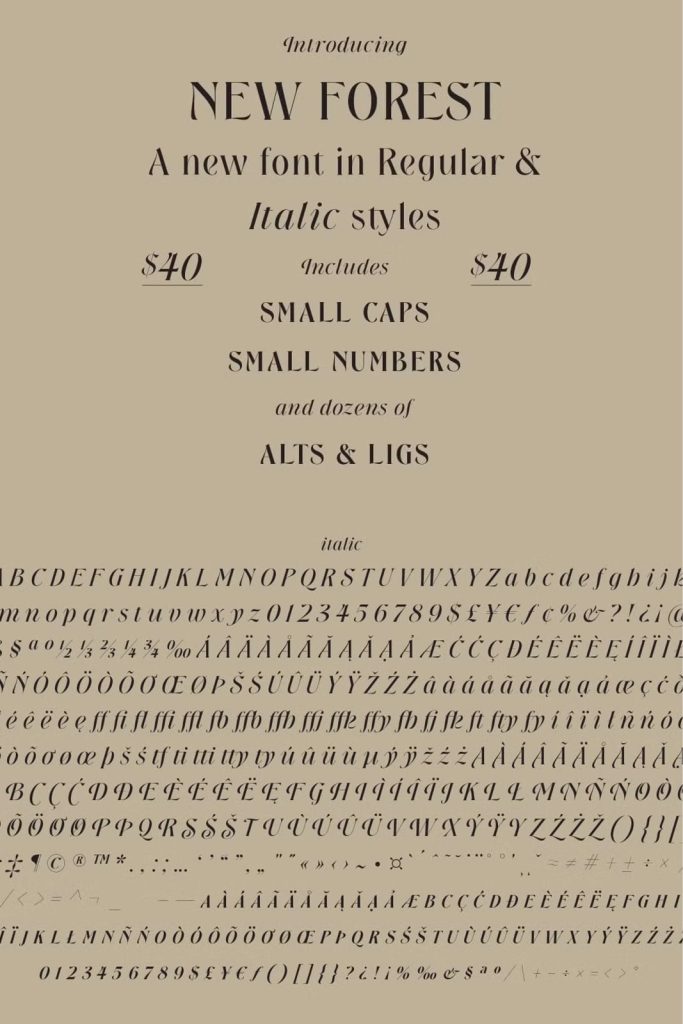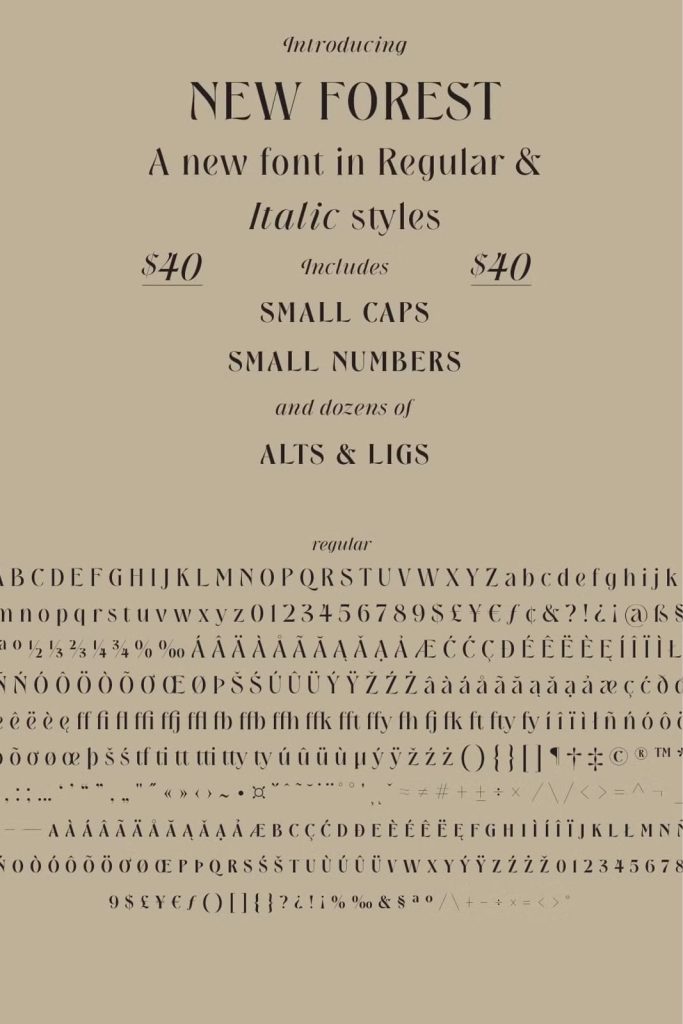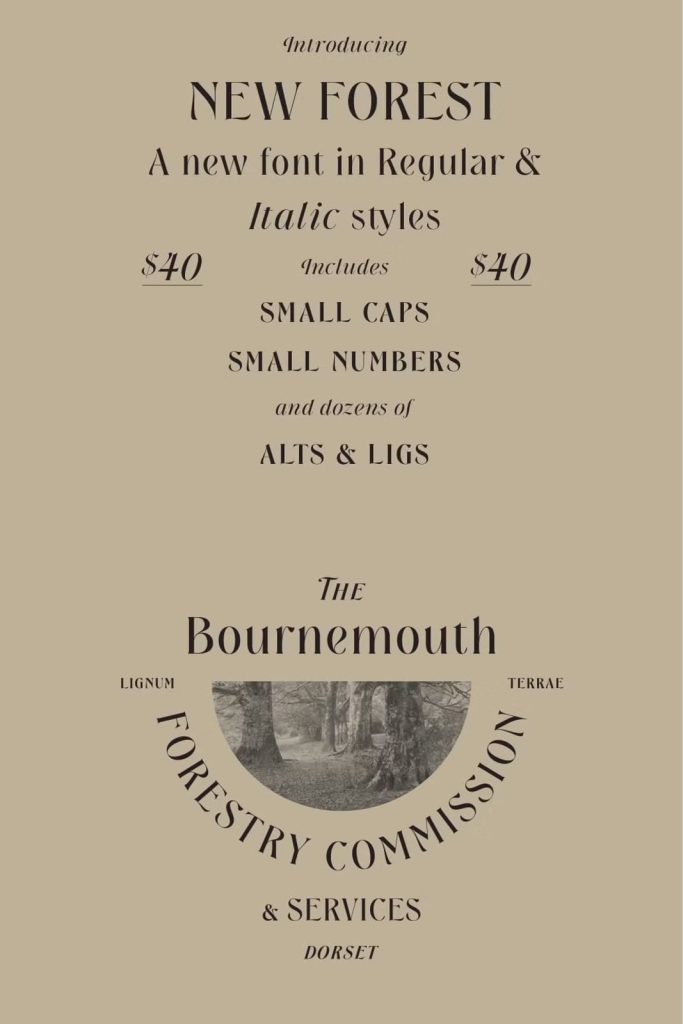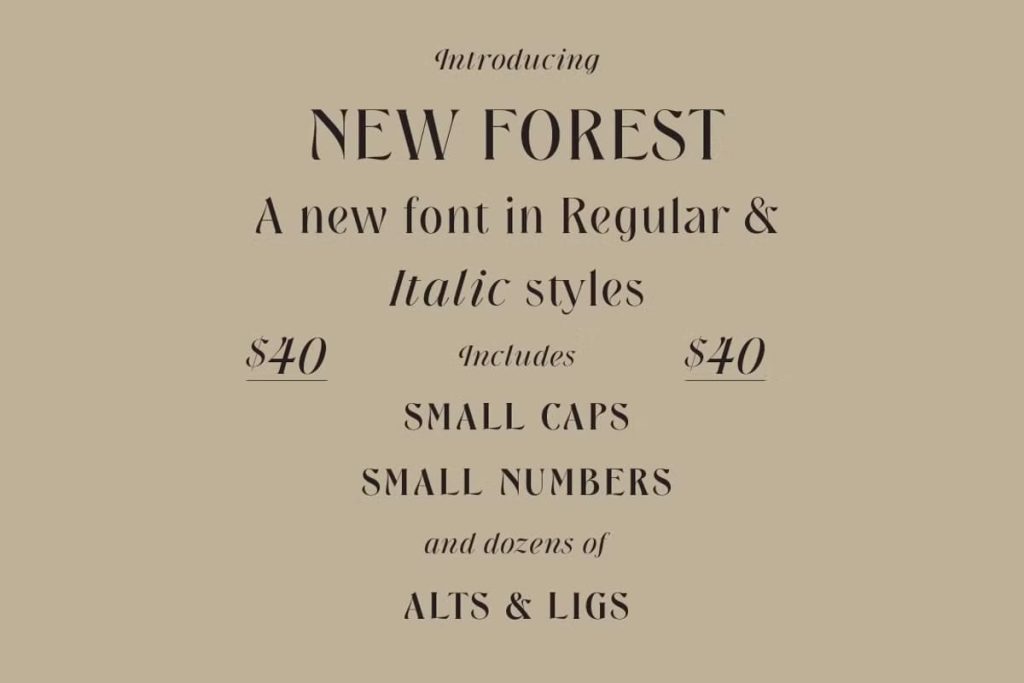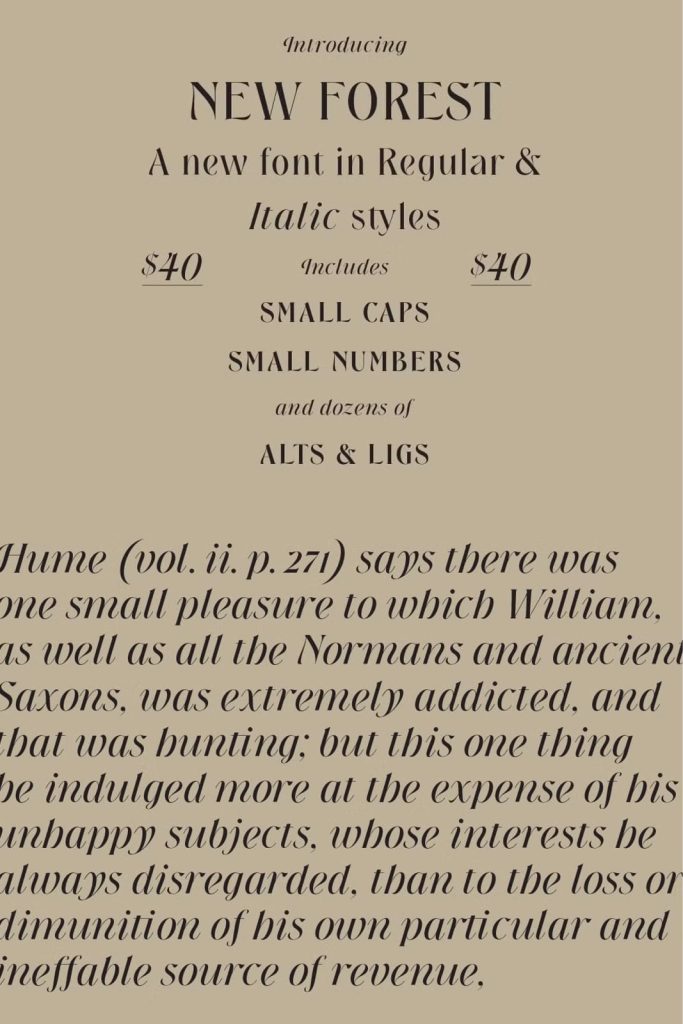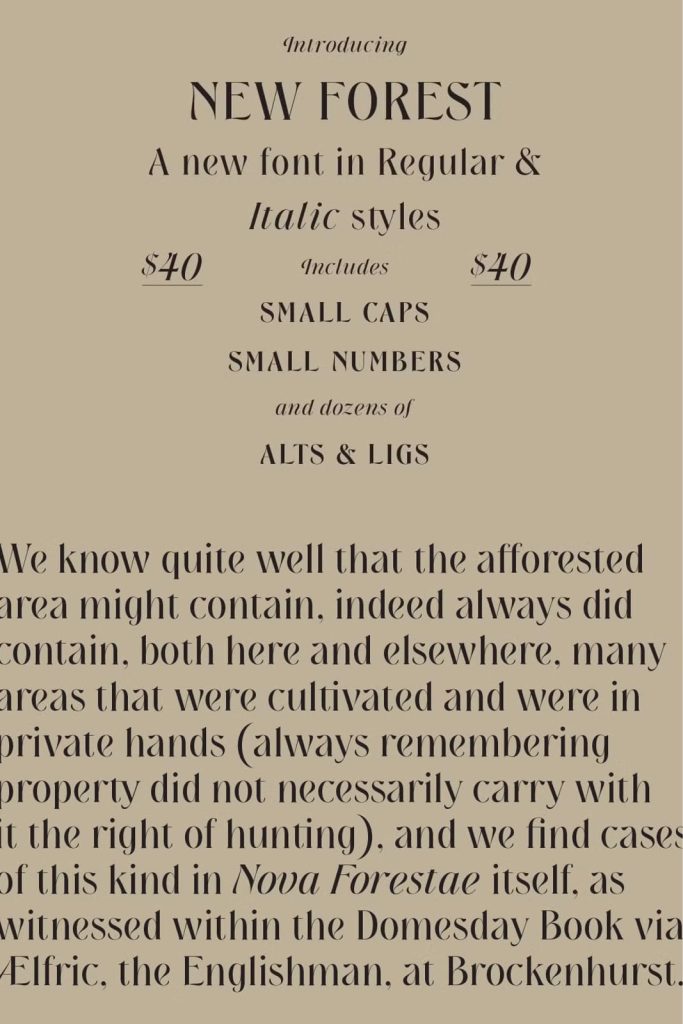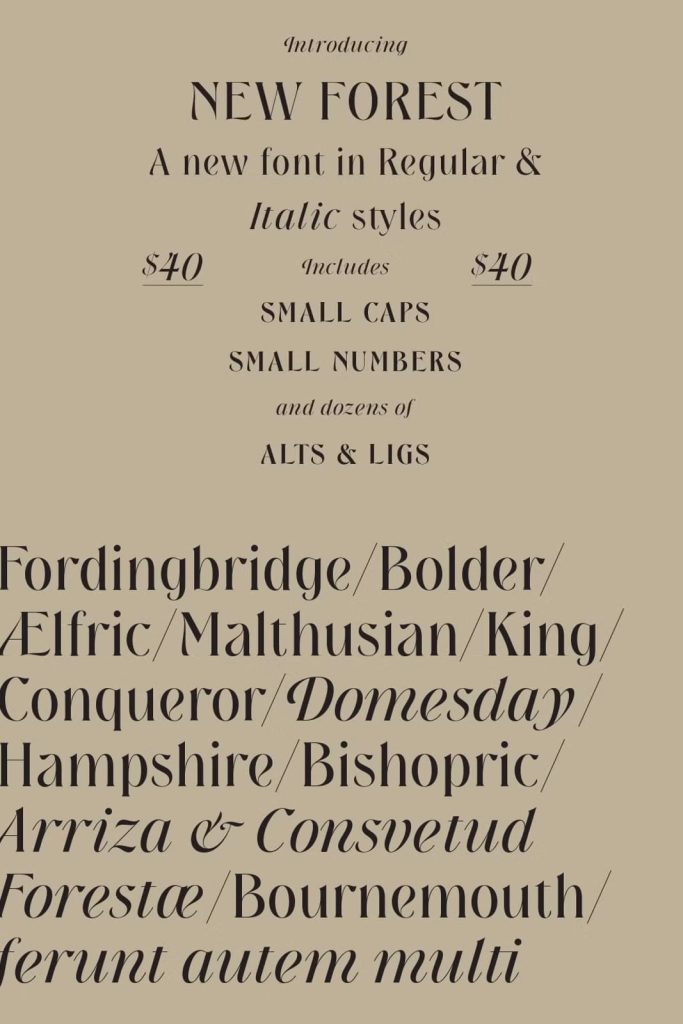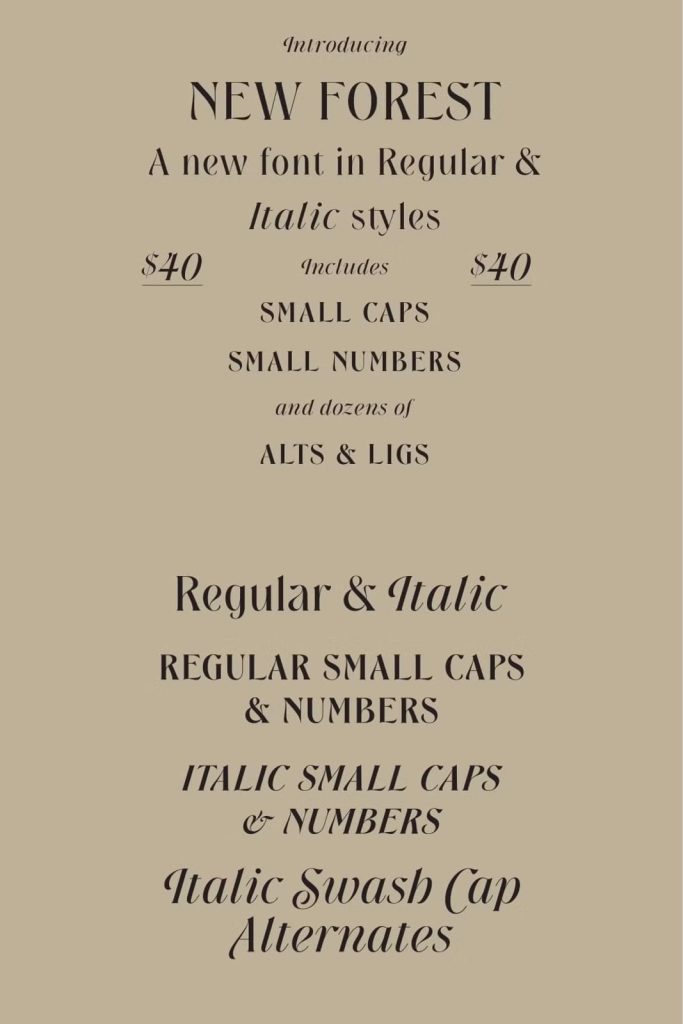
New Forest is a modern, elegant font with art nouveau leanings. Purchase includes two styles: Regular and Italic,
for a combined total of 853 glyphs. Each set includes small caps, small numbers, multiple ligatures and alternates.
New Forest is a modern, elegant font with art nouveau leanings. Purchase includes two styles: Regular and Italic,
for a combined total of 853 glyphs. Each set includes small caps, small numbers, multiple ligatures and alternates.